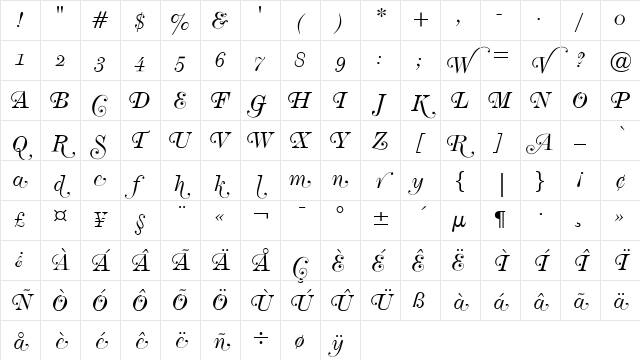
DeVinneBT Italic Free Font
DeVinneBT Italic
Foundry: Jason Walcott/JAW Fonts. DeVinne Copyright Bitstream Corporation
Design Context for DeVinneBT
DeVinneBT is a composed and adaptable typeface that performs quietly and consistently across a wide range of design contexts. The slanted form adds forward momentum and visual energy.
Pro Tip: Use DeVinneBT for emphasis, pull quotes, and subheadings where its slanted energy can add rhythm to the layout.
Who designed the DeVinneBT Italic font?